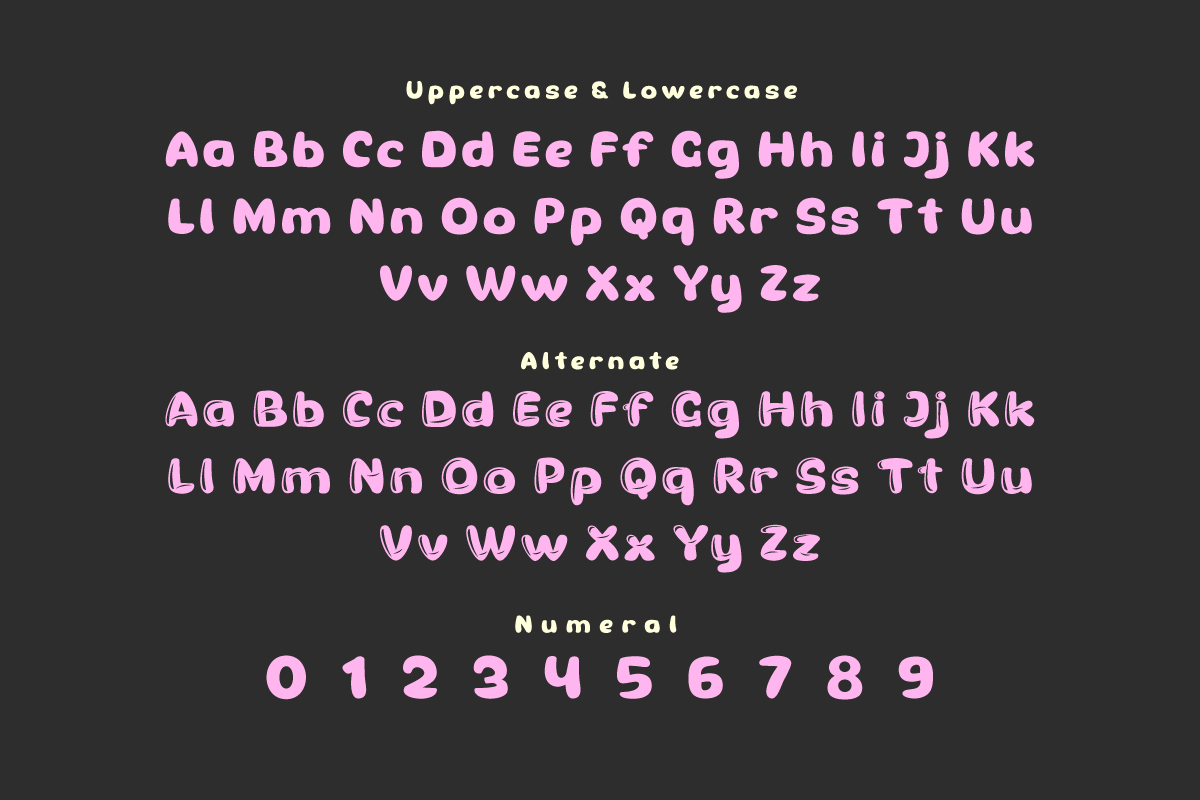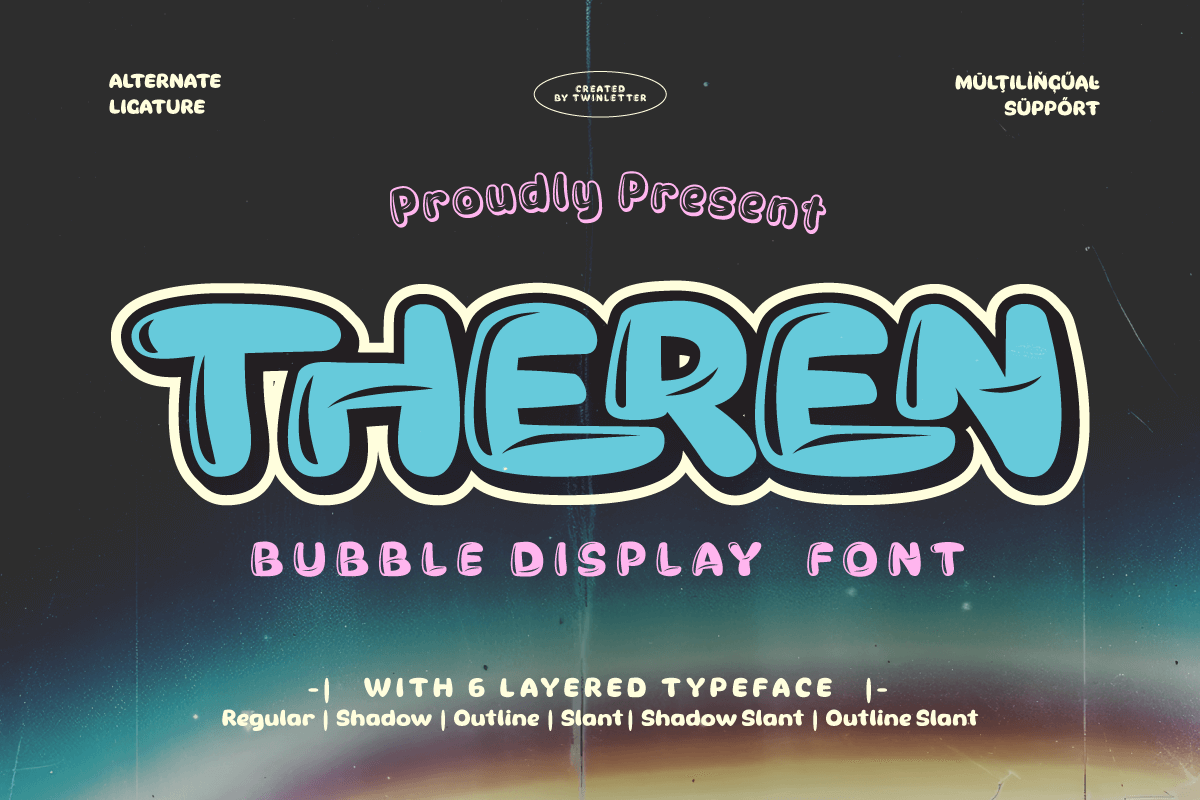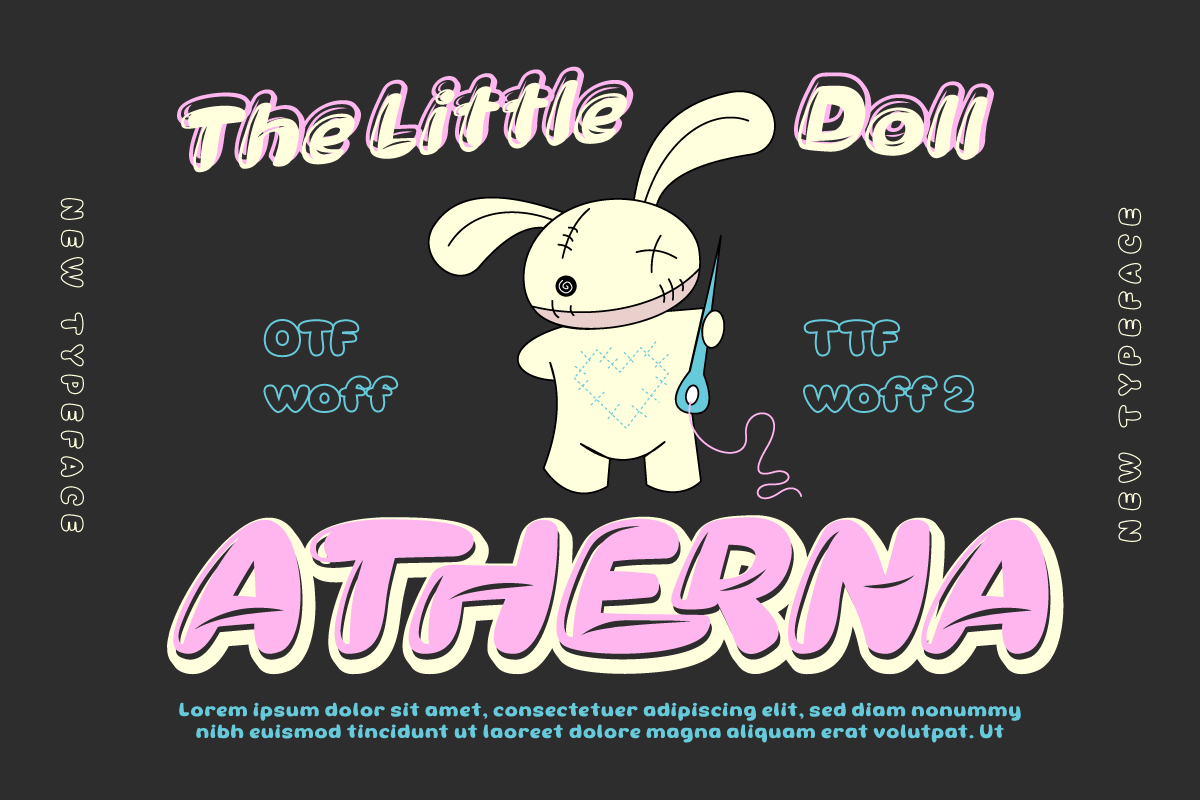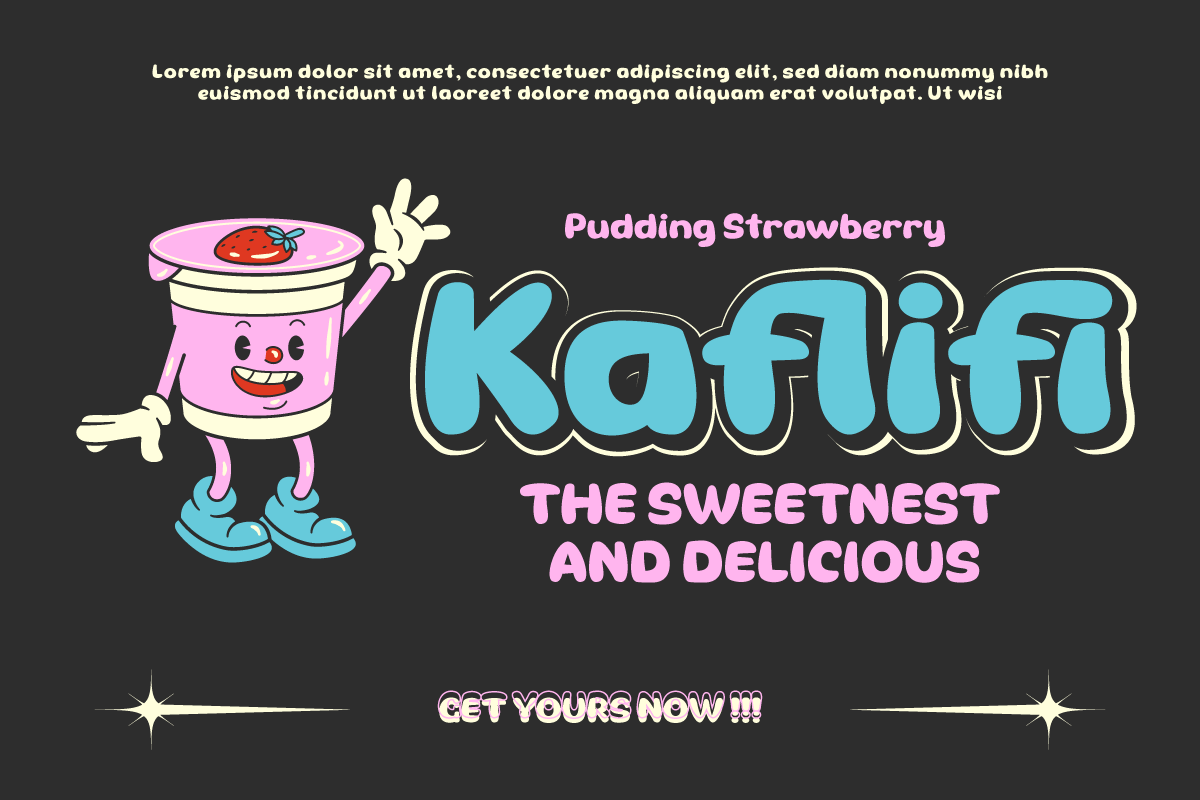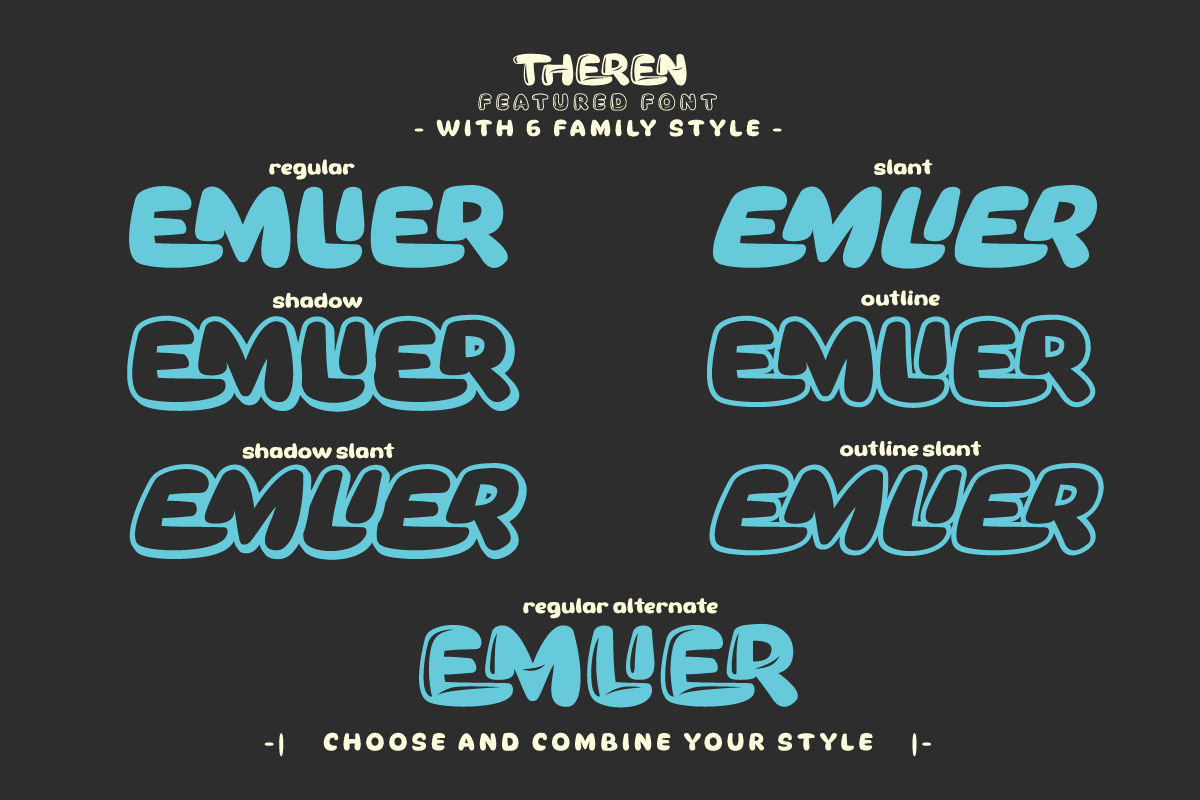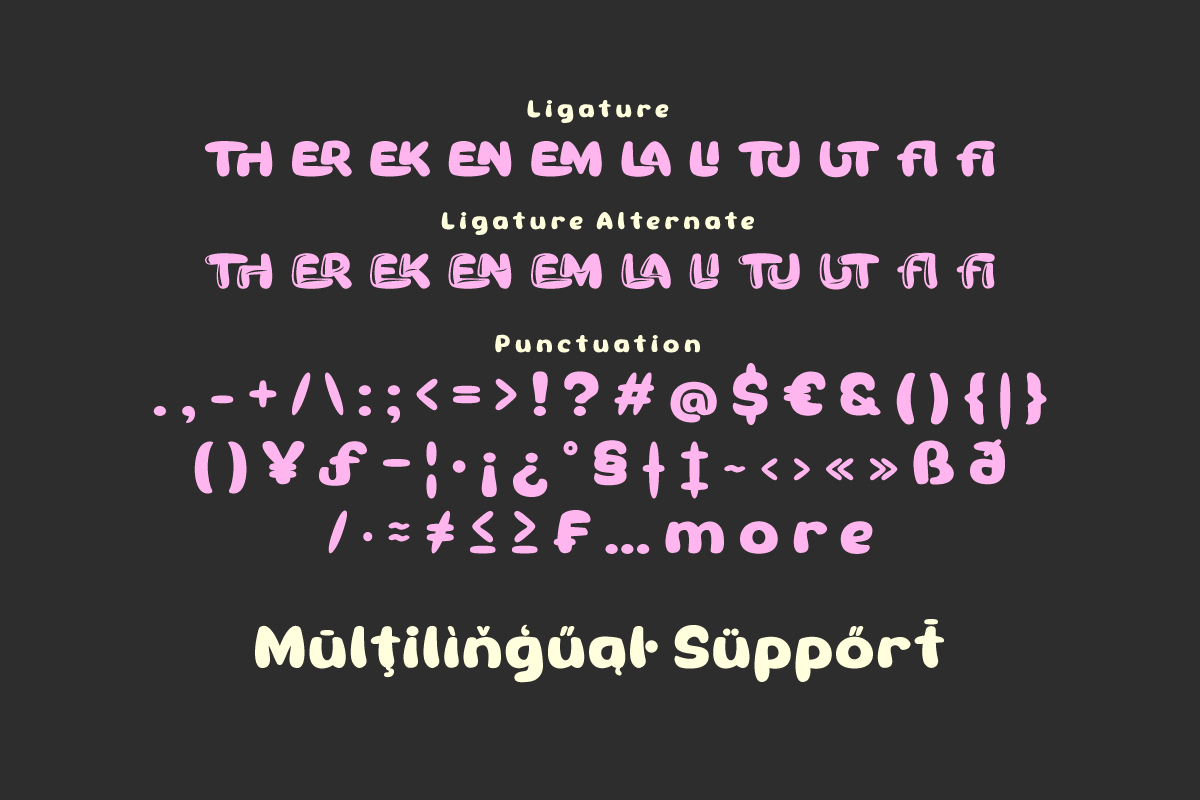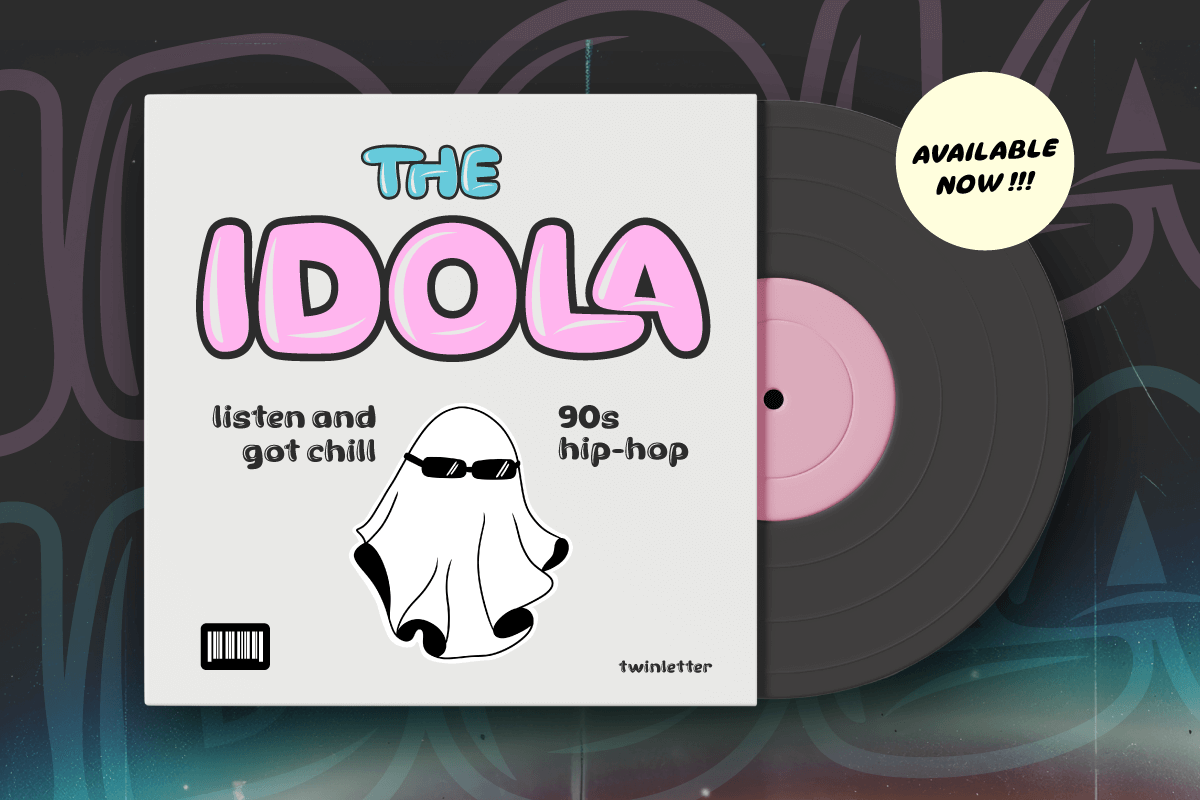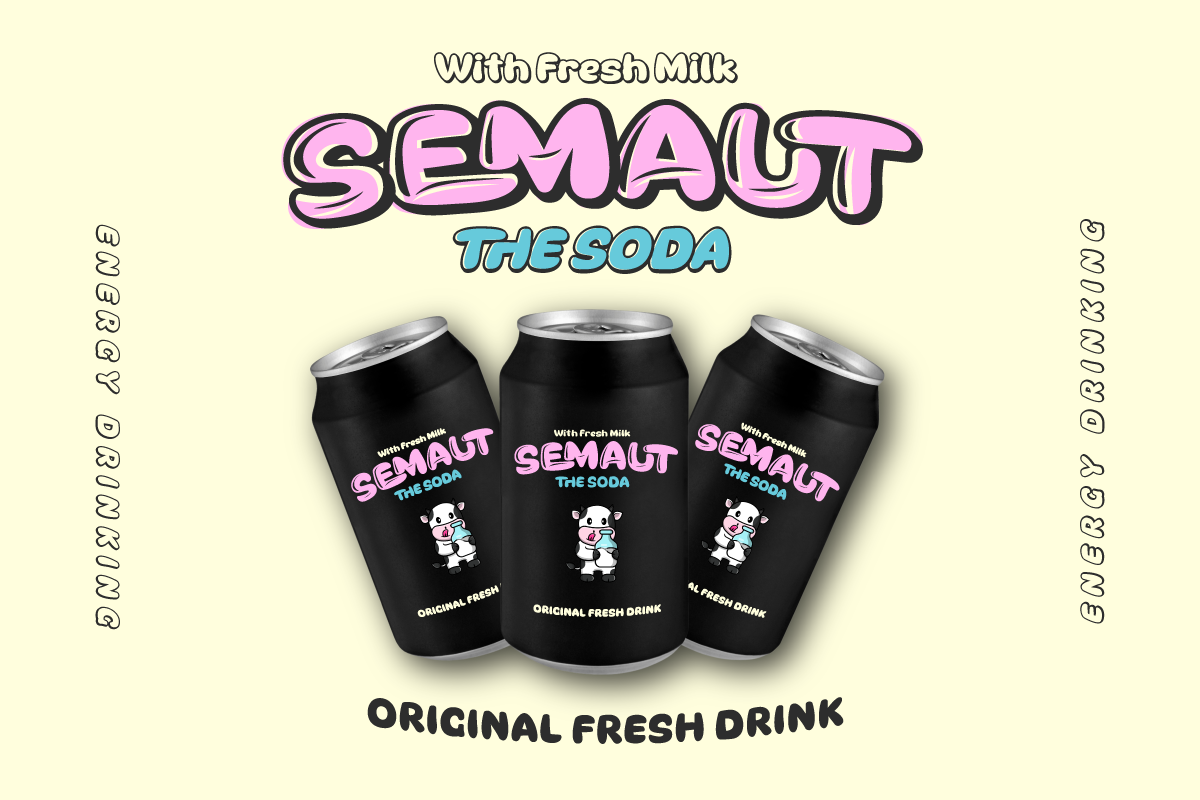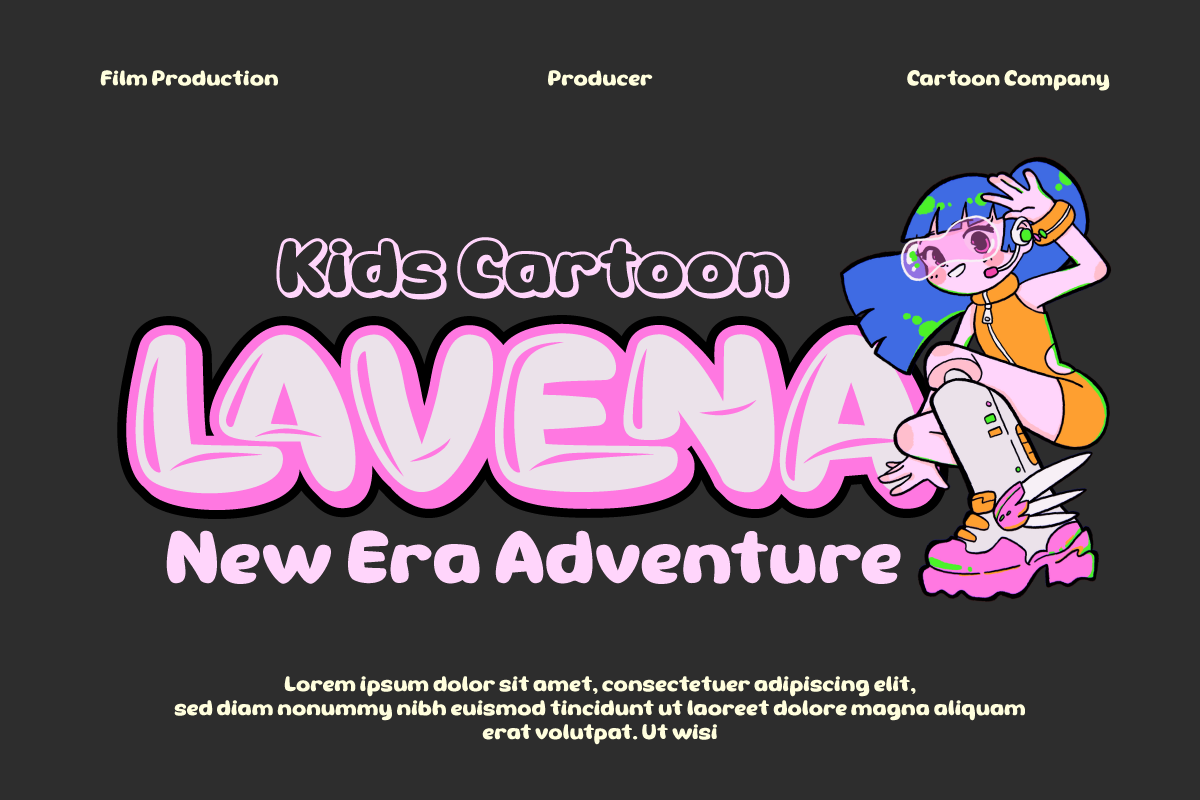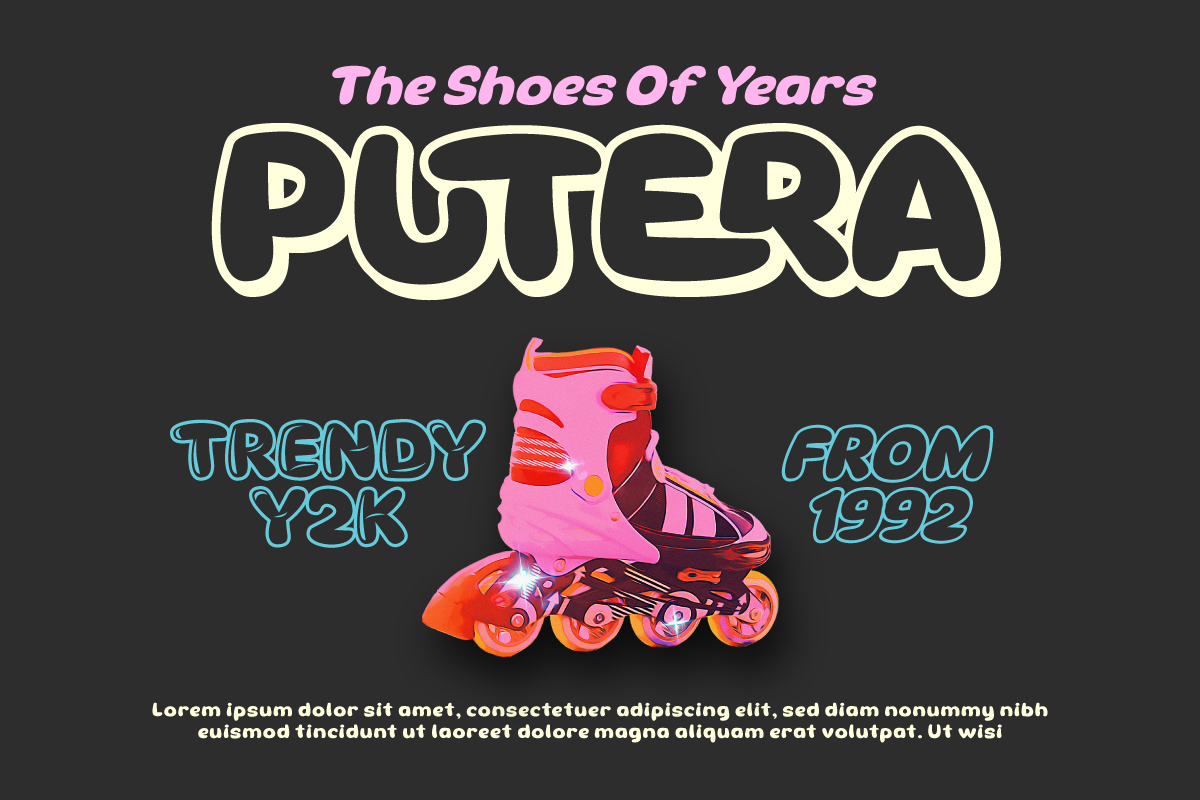
Theren - Bubble Display Font
Theren, is a bubble display font that brings joy to every design. With six different styles, each letter has its unique character.
The regular style provides a bright, easy-to-read base. The clear bubble shapes create a welcoming and friendly impression.
If you want a touch of elegance, choose the Smooth style. With smooth edges, each letter looks soft and charming.
Want to look different? The Outline style provides bold outlines, providing clarity and highlighting every detail.
Explore new dimensions in Shadow style. Artistic shading adds depth to your text, creating an interesting visual effect.
For a creative touch, choose the Distort style. The unique distortion of the letters gives a different feel and challenges convention.
Theren is not just a font, but a collection of styles that can be adapted to your design needs. Choose Theren to give new life to every word you display.